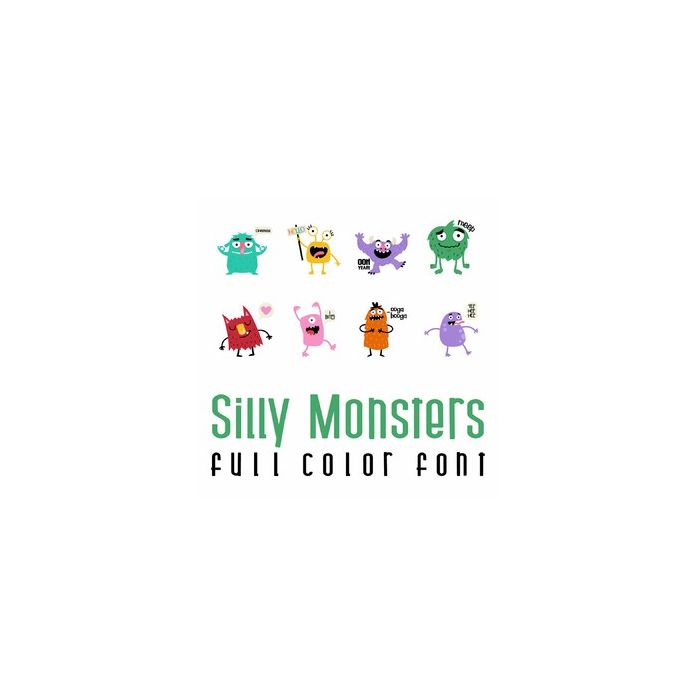
This adorable full color doodlebat font features 26 fun monsters. Perfect for cards, crafts, gifts, decor, scrap book pages, planner stickers and more!